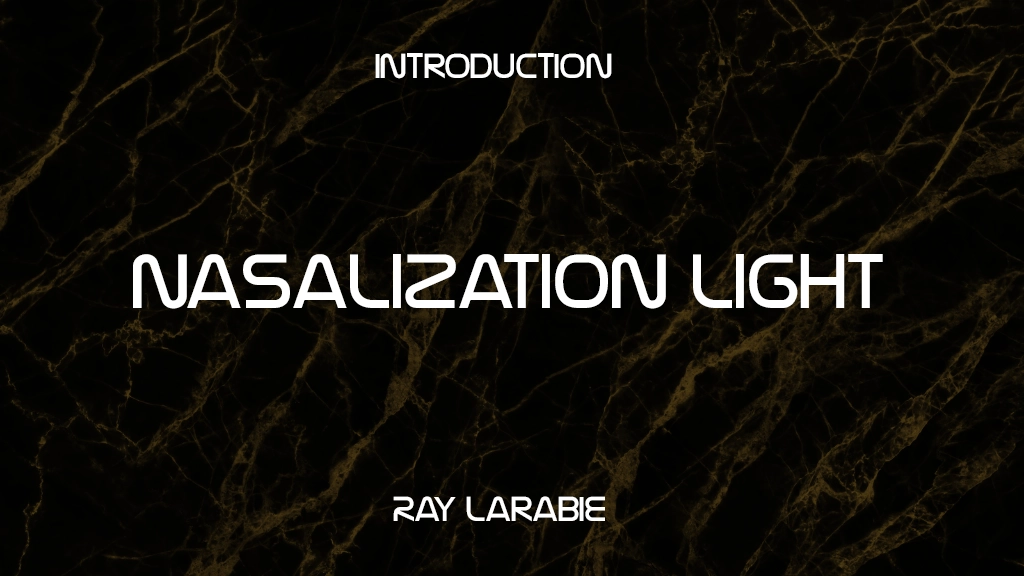
Nasalization Light is a fun font that can be used for personal projects.It is a Regular font, which means that it has a normal weight.It was designed by Ray Larabie and is available for free for personal use.